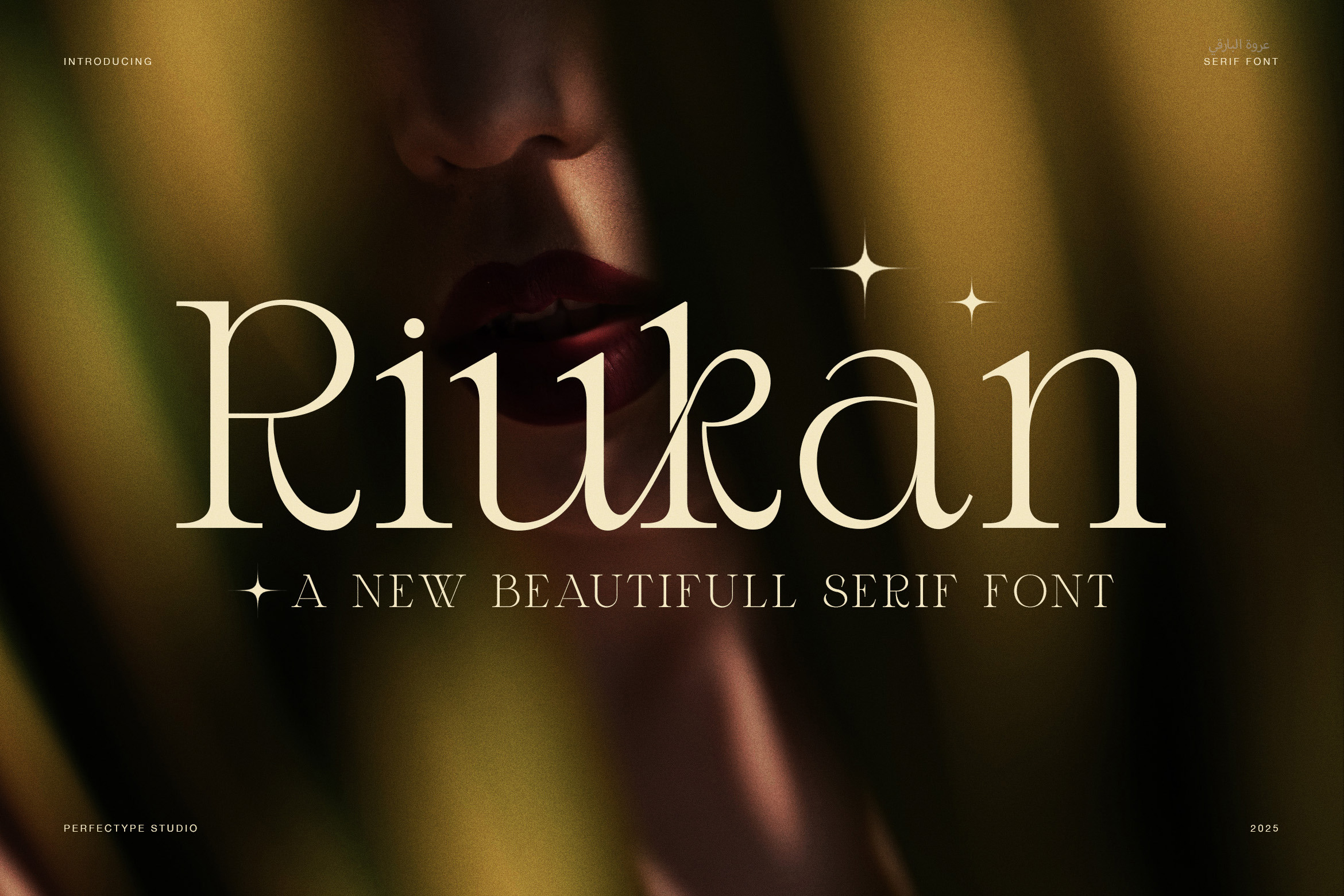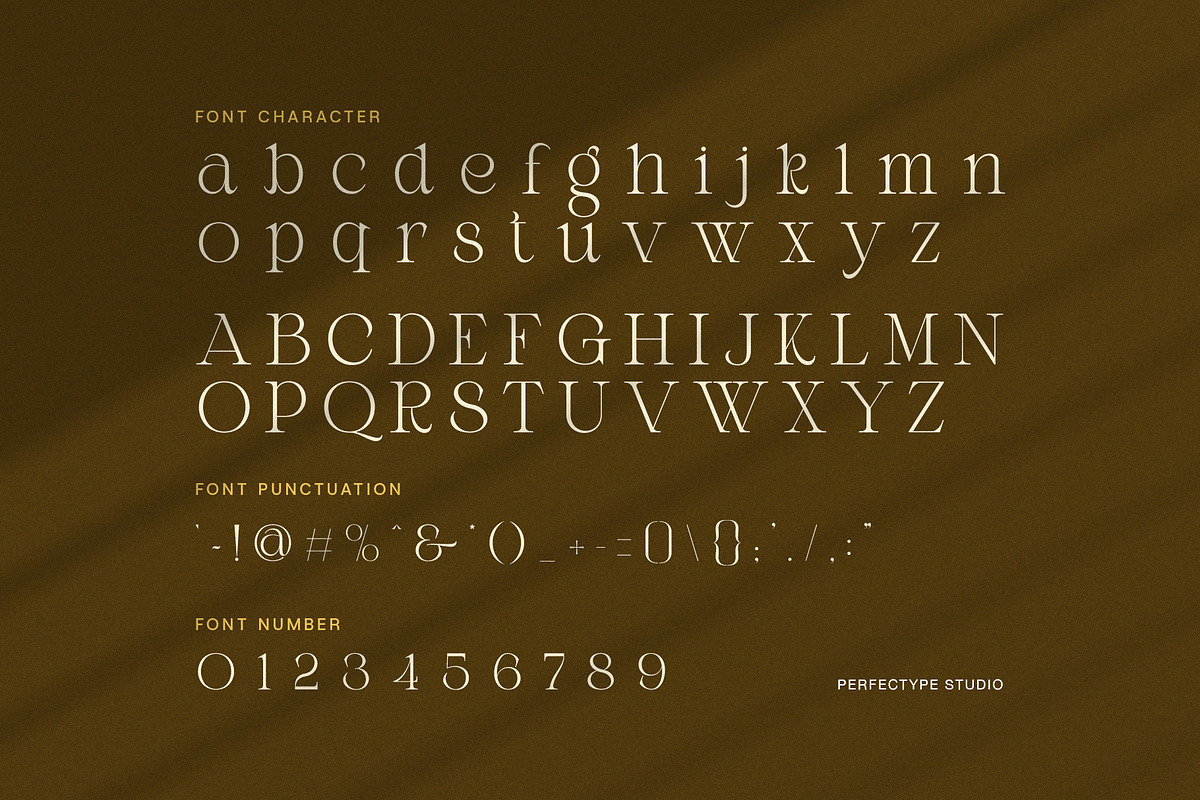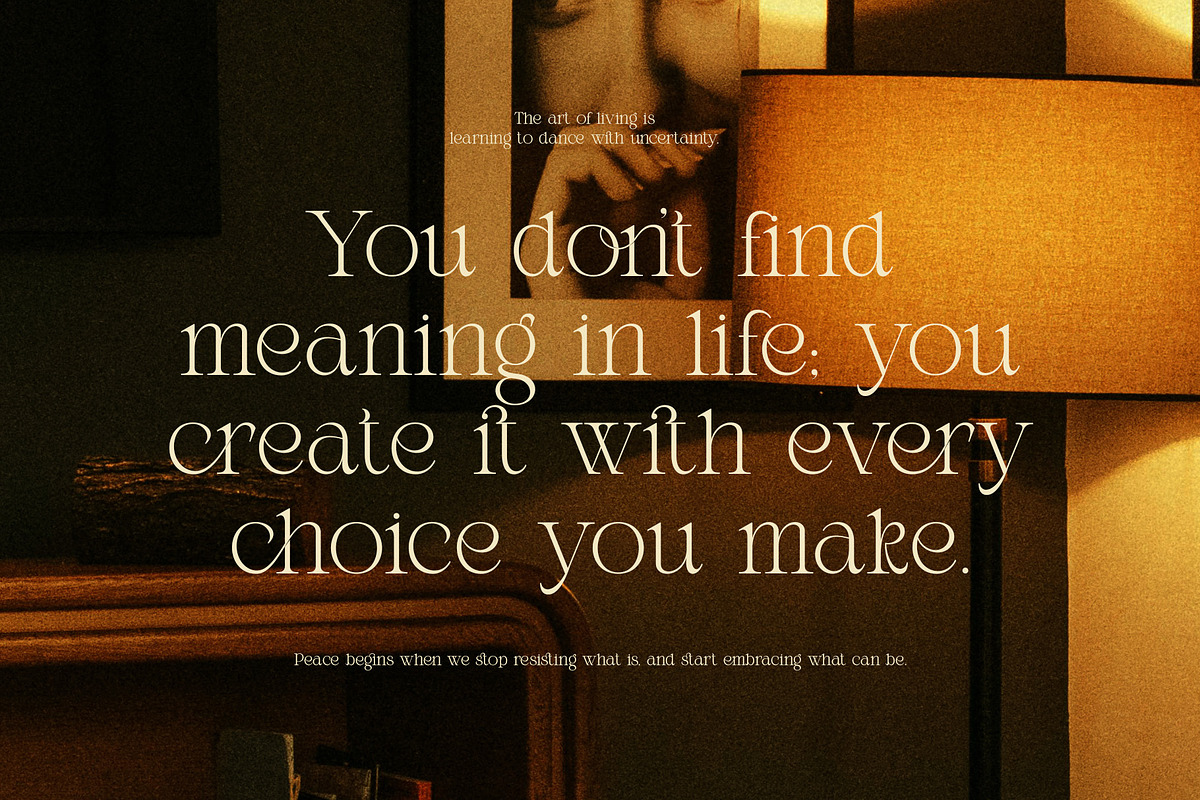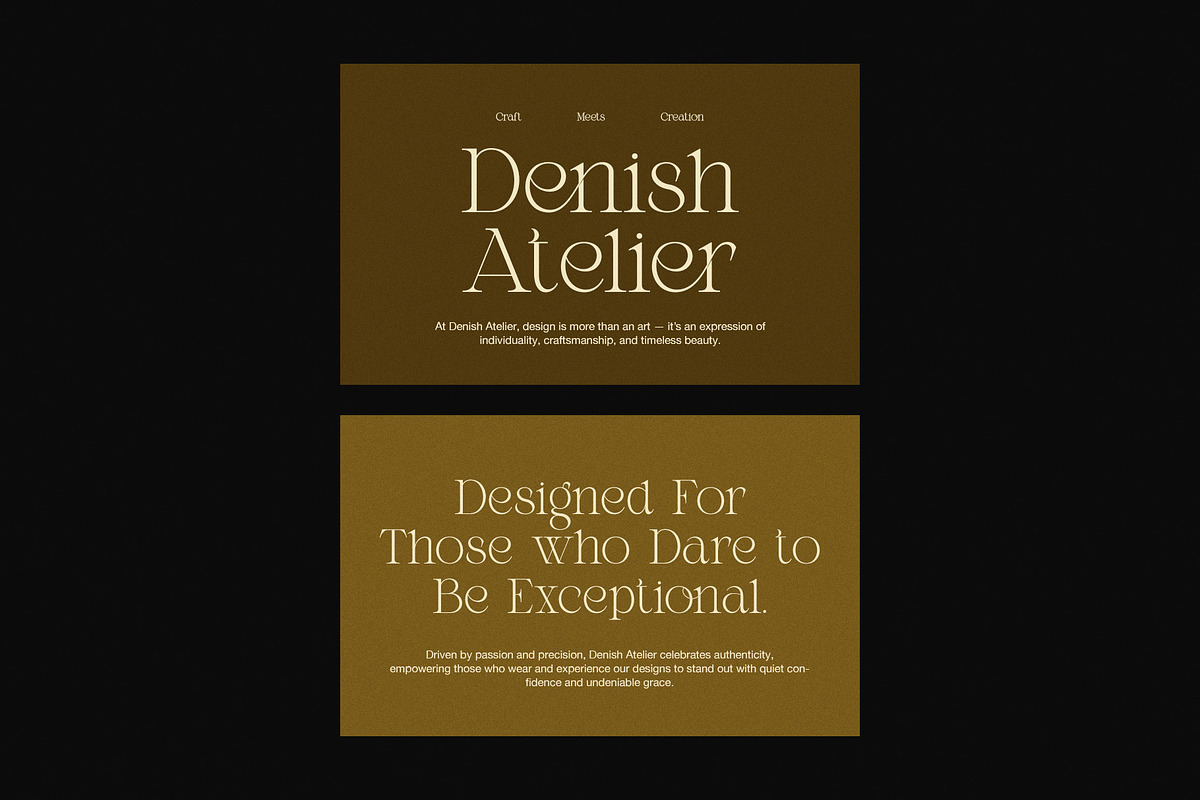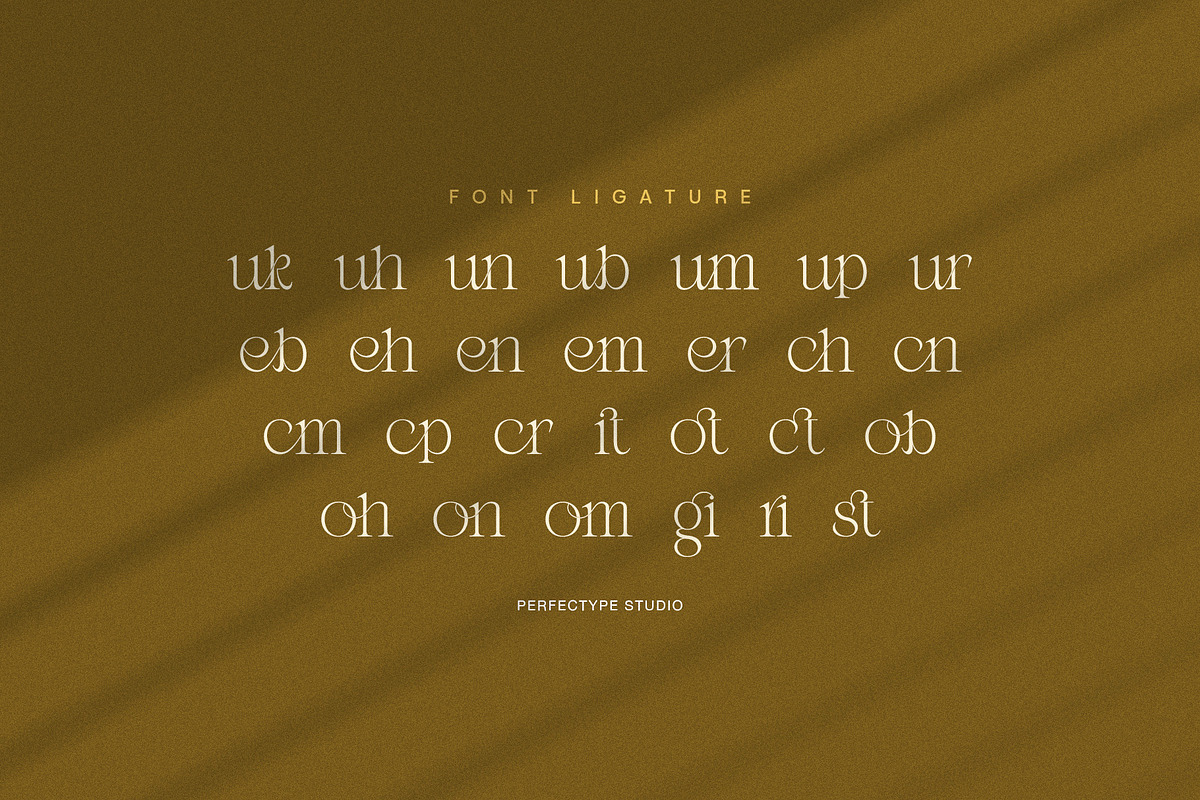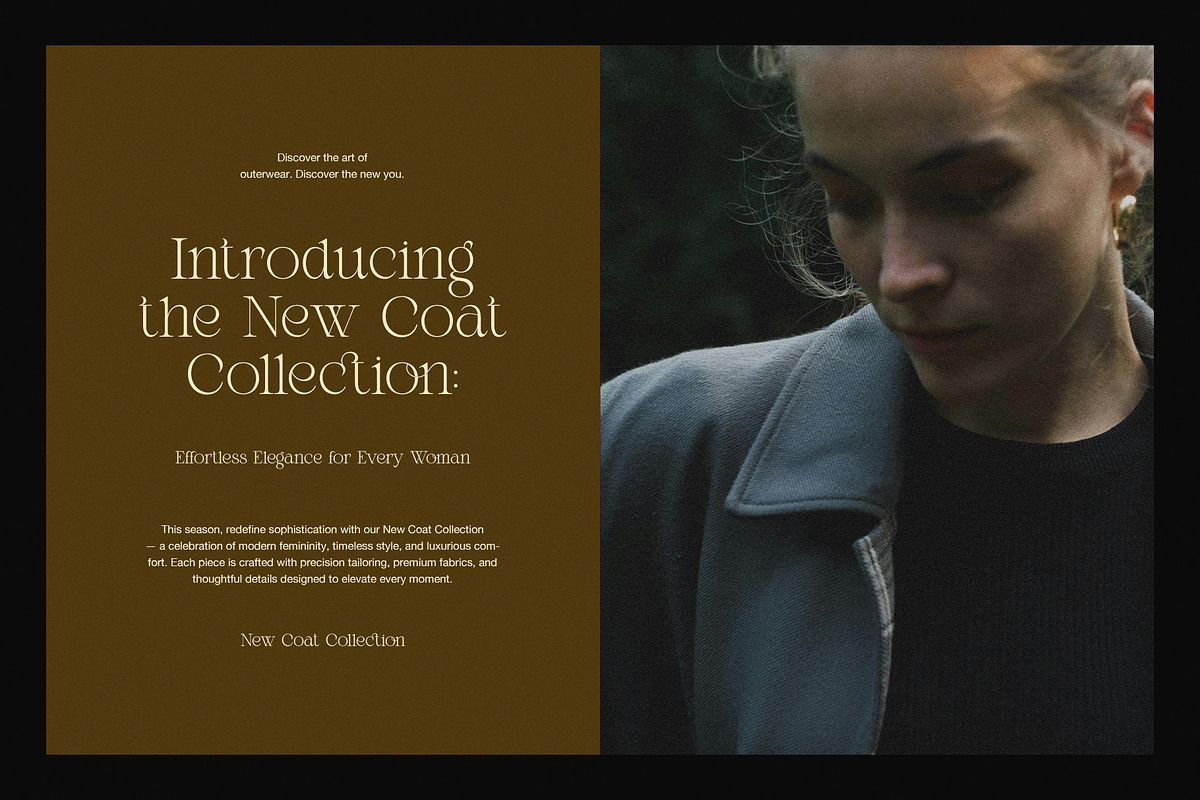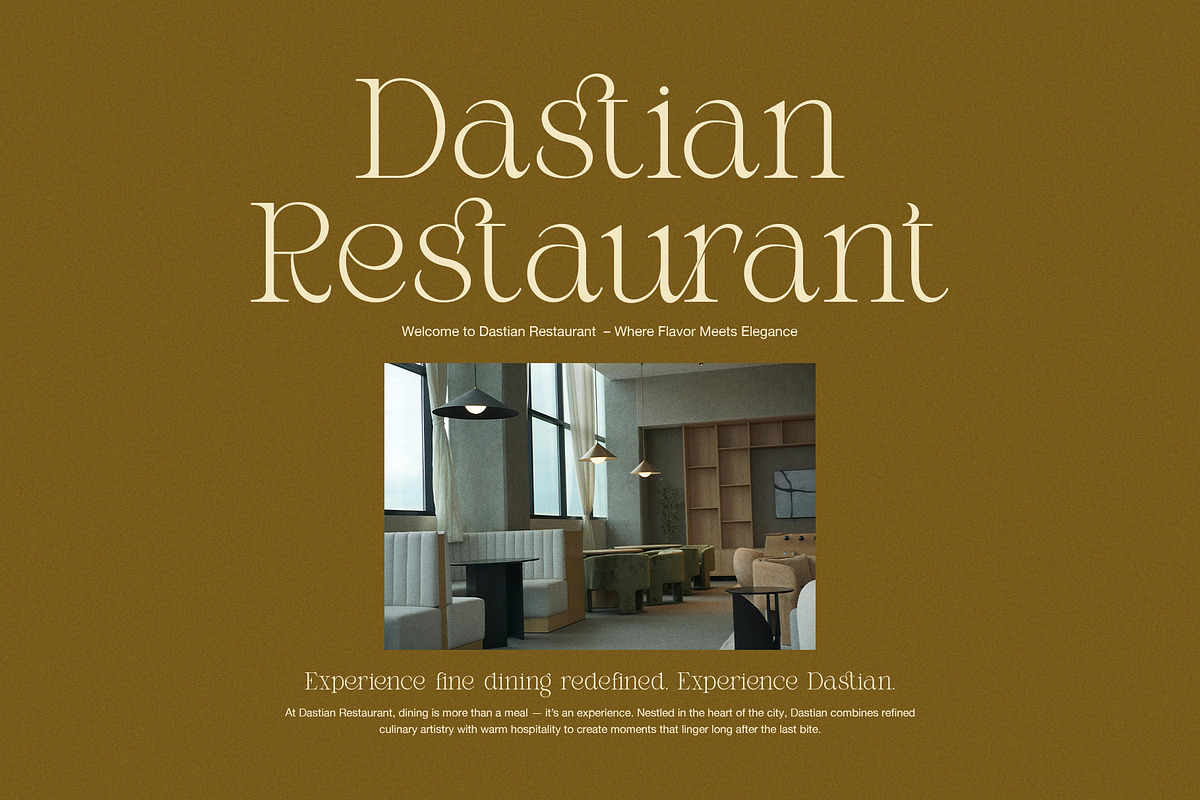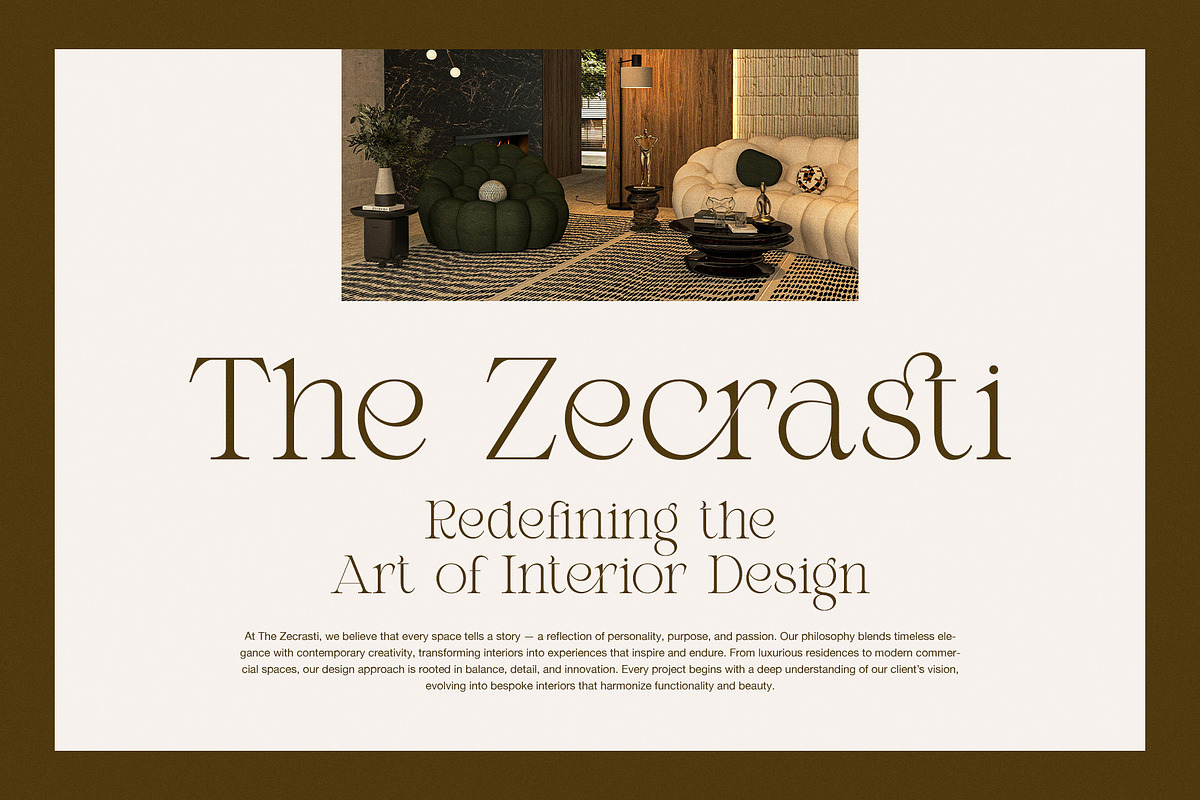
Riukan modern elegant serif font
Riukan is a modern elegant serif font that blends timeless charm with refined modern beauty. It was designed for creators who seek sophistication, balance, and a sense of warmth in every design. Because of its graceful curves and elegant contrast, Riukan feels both classic and contemporary at once.
Each letter is crafted with care to ensure perfect visual harmony. As a result, Riukan offers smooth readability while maintaining artistic flair. Moreover, its subtle serifs and stylish ligatures add a distinctive touch that brings life to your words.
Why Choose Riukan?
Elegant serif with modern sophistication
Includes beautiful ligatures and alternates
Perfect for branding, packaging, and editorials
Designed for both digital and print use
Supports multiple languages
Riukan is not just stylish — it’s also practical. Its unique structure makes it perfect for high-end branding, wedding invitations, luxury packaging, and magazine layouts. Furthermore, the font’s balanced proportions make every text appear graceful and professional.
You can use Riukan to express creativity in a calm and confident way. Whether it’s a minimalist design or a bold logo, this font adapts beautifully to your vision. In addition, its classic proportions allow it to pair well with sans-serif fonts for elegant contrast.
Because of its timeless design, Riukan feels fresh across many themes. It works equally well for modern brands, fashion campaigns, or editorial projects. Ultimately, Riukan turns ordinary words into visual elegance, giving your designs a lasting impression.
Bring sophistication to your creative work with Riukan, a serif typeface that defines luxury through simplicity and beauty.